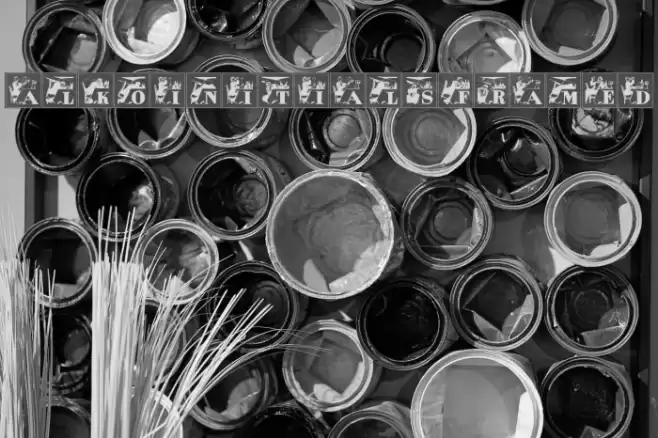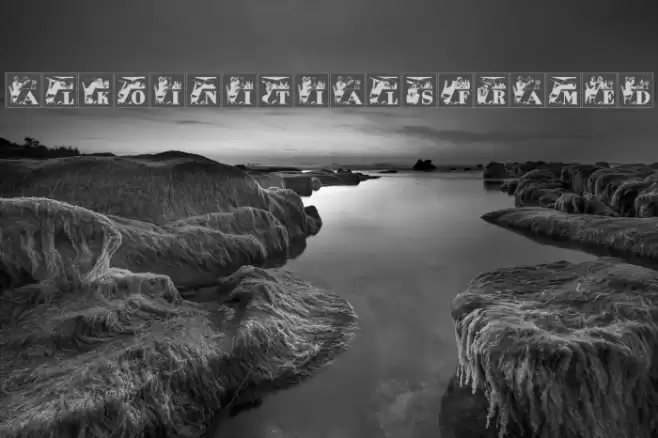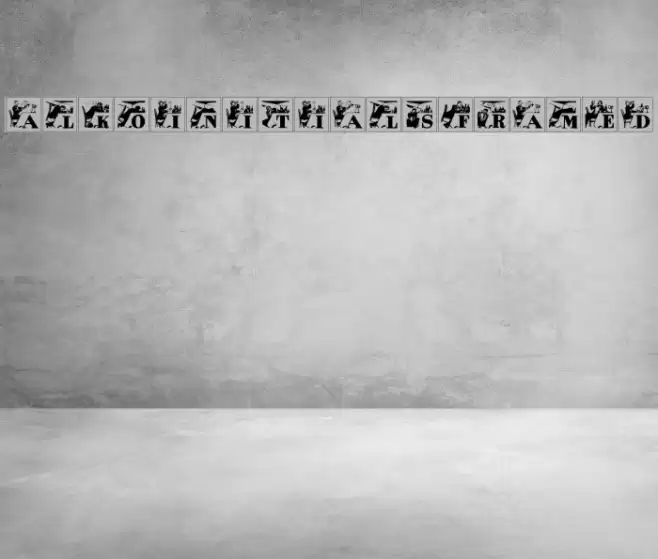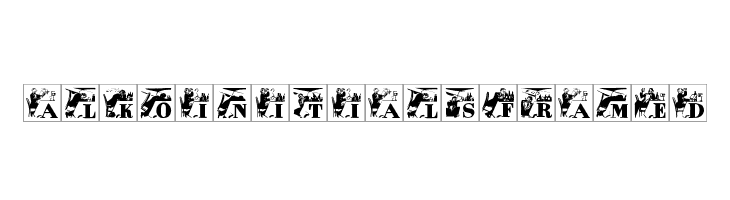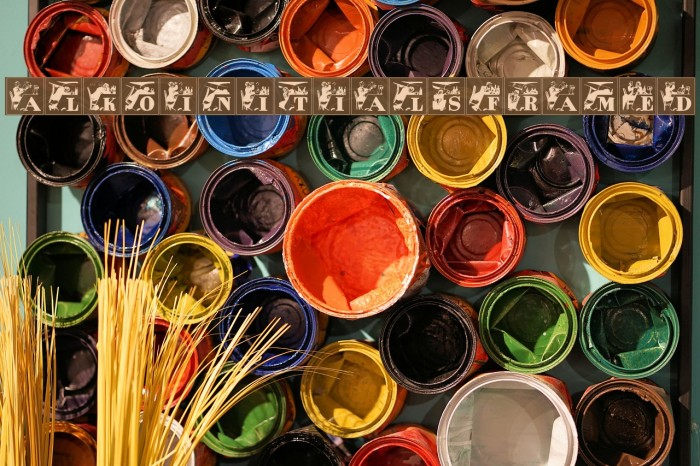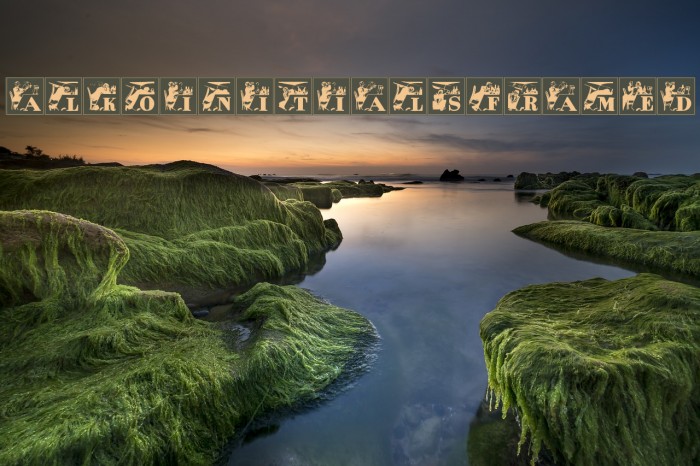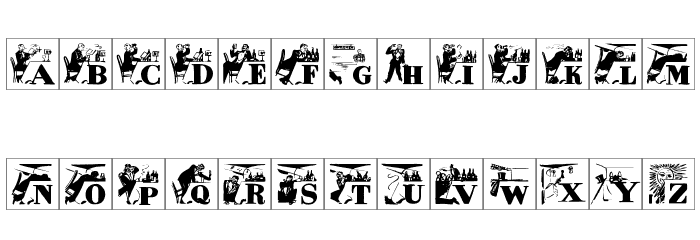
AlkoInitialsFramed Font
AlkoInitialsFramed Description
This font features an elaborate and decorative style, with each letter framed and adorned with intricate illustrations. The uppercase letters are the main focus, each encapsulated within a square frame, showcasing detailed scenes or motifs that add a storytelling element to the typography. The design is reminiscent of illuminated manuscripts, where each letter is a work of art, making it suitable for projects that require a touch of elegance and historical flair. The absence of lowercase letters and numbers emphasizes its use as a decorative or display font, rather than for body text. The artistic nature of the font makes it ideal for creating unique and eye-catching headlines or titles.
A decorative font with framed uppercase letters featuring intricate illustrations from Uncategorized fonts.
- Proposed Projects: Ideal for book covers, posters, invitations, and any project requiring a historical or artistic touch.
- Overall Style: Vintage